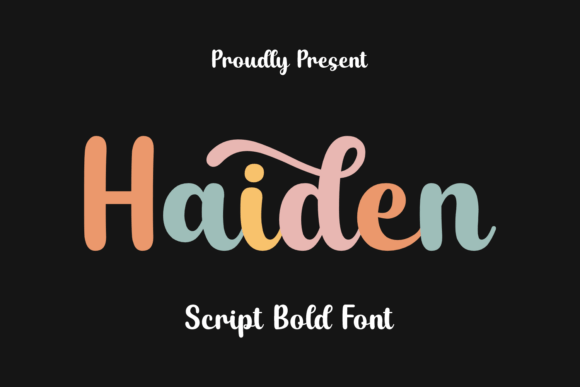
Unveiling the Haiden Font: A Symbol of Bravery and Adventure
The Haiden Font is more than just a name; it’s a statement. It embodies strength, confidence, and a sense of adventure that is hard to ignore. In a world where first impressions matter, Haiden makes a bold statement, perfect for those who are not afraid to stand out from the crowd.
The Haiden Font: A Reflection of Strength and Confidence
The Haiden Font is a reflection of the name’s strong and confident personality. Its bold and adventurous design makes it perfect for use in a variety of contexts, from logos and branding to headlines and titles. The font’s clean and modern lines give it a sense of sophistication and elegance, making it suitable for use in both digital and print materials.
The Haiden Font is designed to make a statement. Its strong and confident design ensures that it stands out from the crowd, grabbing the attention of anyone who sees it. Whether you’re looking to create a bold logo or a striking headline, the Haiden Font is the perfect choice.
The Benefits of Using the Haiden Font
So, why should you choose the Haiden Font for your next project? Here are some of the benefits of using this powerful and confident font:
- Attention-grabbing: The Haiden Font is designed to grab attention and make a statement.
- Versatile: The Haiden Font is suitable for use in a variety of contexts, from logos and branding to headlines and titles.
- Modern: The Haiden Font has a clean and modern design that ensures it looks great in both digital and print materials.
- Easy to read: The Haiden Font is clear and easy to read, making it perfect for use in body text and other applications.
How to Use the Haiden Font
So, how can you use the Haiden Font in your next project? Here are some ideas to get you started:
- Logos and branding: Use the Haiden Font to create a bold and memorable logo that makes a statement.
- Headlines and titles: Use the Haiden Font to create striking headlines and titles that grab attention.
- Posters and flyers: Use the Haiden Font to create eye-catching posters and flyers that stand out from the crowd.
- Digital media: Use the Haiden Font in your digital media, such as social media graphics and website headers.
In conclusion, the Haiden Font is a powerful and confident font that is perfect for those who are brave and adventurous. Its strong and confident design makes it suitable for use in a variety of contexts, from logos and branding to headlines and titles. Whether you’re looking to create a bold logo or a striking headline, the Haiden Font is the perfect choice.
- What is the Haiden Font? The Haiden Font is a bold and confident font that is perfect for those who are brave and adventurous.
- What are the characteristics of the Haiden Font? The Haiden Font is strong, confident, and adventurous, making it perfect for use in a variety of contexts.
- How can I use the Haiden Font? You can use the Haiden Font in logos and branding, headlines and titles, posters and flyers, and digital media.